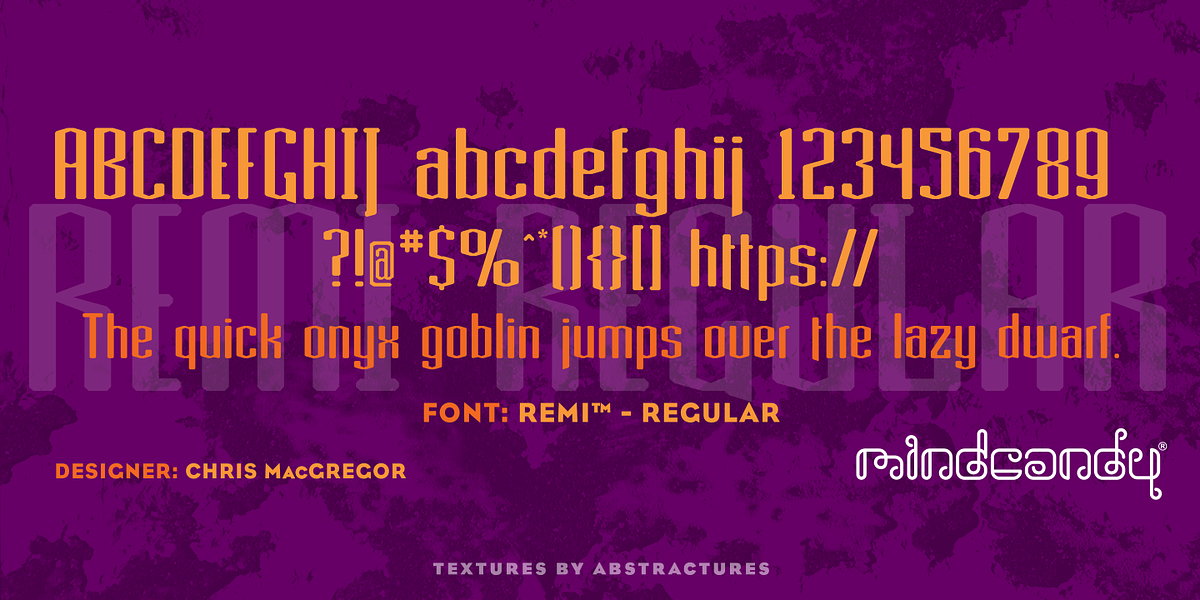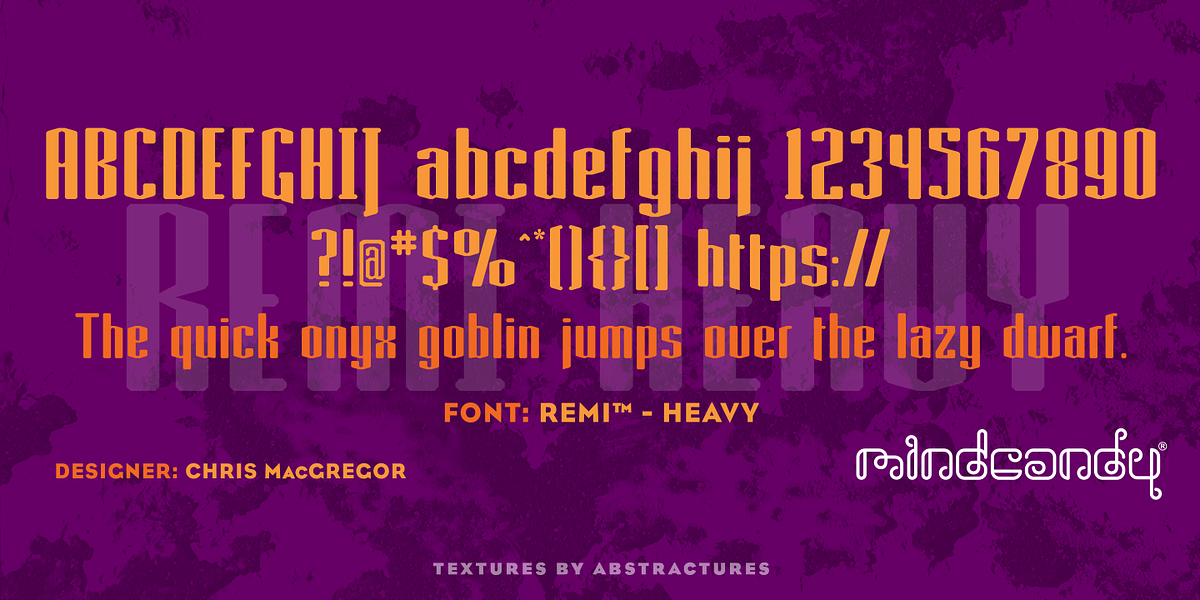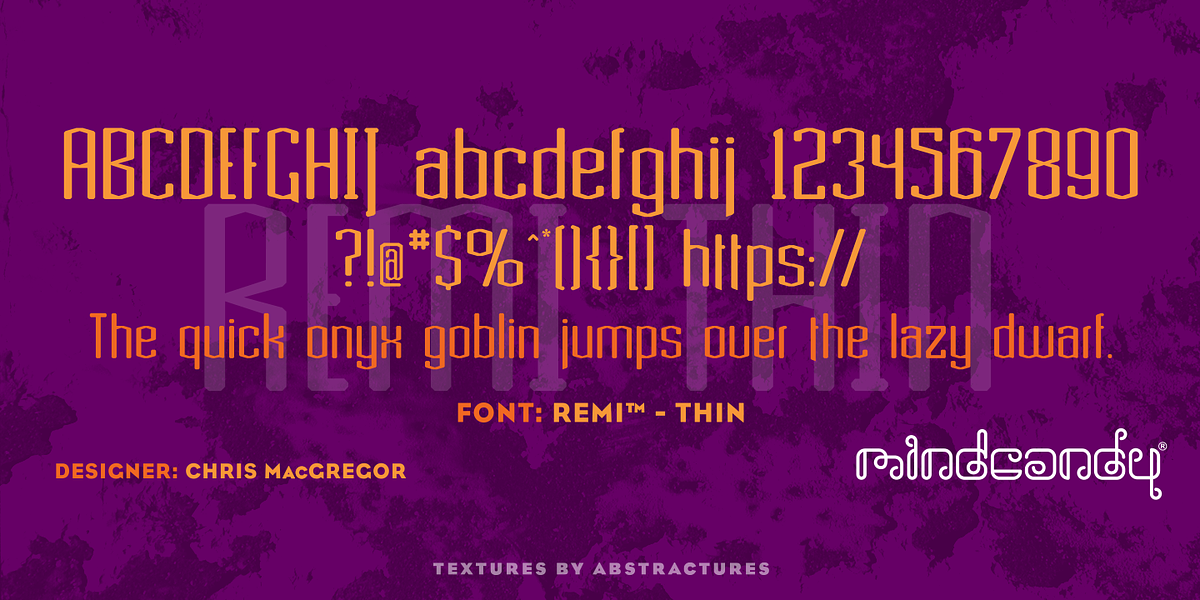
Remi™
This font is a bold geometric sans serif designed for display purposes. Its defining characteristic is its sharp, angular strokes which lend it a distinctly modern and industrial feel.